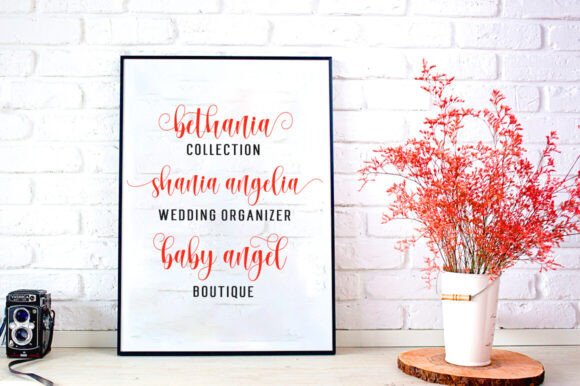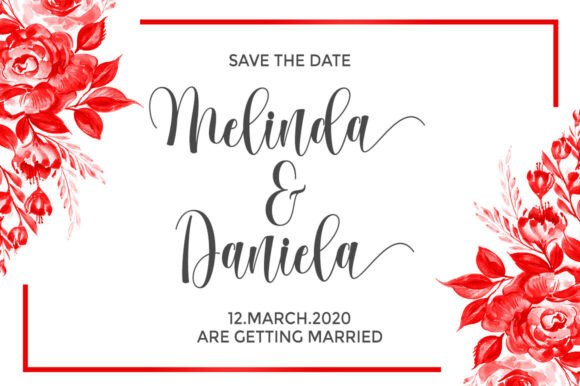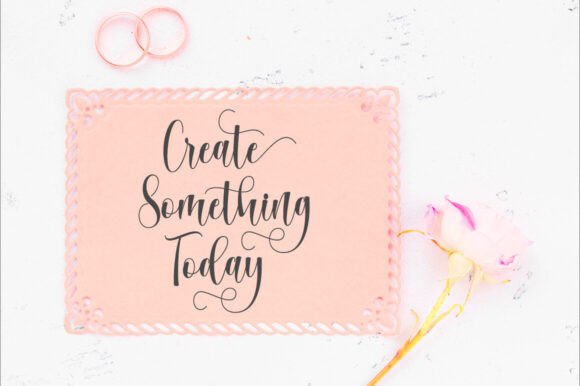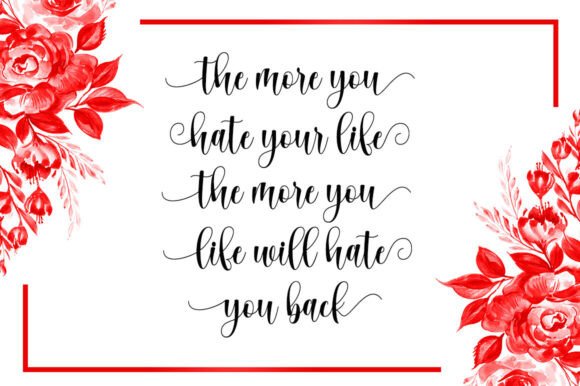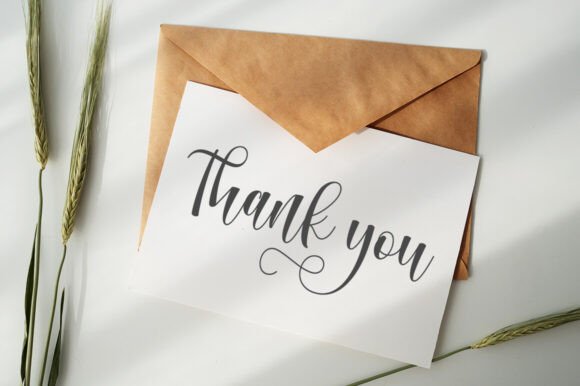
The Magical World of Disney Font: A Designer’s Delight
I’ll never forget the time I was working on a wedding invitation project, and my client asked for a font that was “magical” and “whimsical.” I scoured the internet, trying out font after font, but nothing seemed quite right. That was until I stumbled upon the Disney font. With its sweet, cursive handwritten style, it was love at first sight! ✨ In this article, I’ll share my experience with this gorgeous font, its features, and how to make the most of it in your designs.
An Honest Review of Disney Font
- ✨ The Disney font is a beautiful, elegant script that adds a touch of sophistication to any design.
- ✅ Its cursive style is perfect for creating romantic and whimsical designs, such as wedding invitations, greeting cards, and branding materials.
- 💫 The font is incredibly versatile and can be used for a wide range of projects, from fashion lookbooks to marketing promotions.
While the Disney font is a stunning addition to any design, there are a few things to keep in mind: 🤔
- ⚠️ The font can be a bit tricky to read at smaller sizes, so it’s best to use it for headlines or titles rather than body text.
- ⚠️ Some of the characters, such as the lowercase “q” and “x,” can be a bit quirky and may not fit perfectly with every design.
- Experiment with the font’s OpenType features, such as glyphs and stylistic alternates, to add some extra flair to your design.
The Story Behind Disney Font
The Disney font was inspired by the magical world of Disney, where fantasy and romance come alive. Its creator, a talented type designer, wanted to capture the essence of Disney’s whimsical style and bring it to the world of typography. The result is a font that’s both elegant and playful, perfect for designers who want to add a touch of magic to their work.
| Font Name | Disney Font |
| Author | Saint Creative |
Q: What type of projects is the Disney font best suited for?
A: The Disney font is perfect for a wide range of projects, including branding, logos, wedding invitations, greeting cards, fashion lookbooks, and marketing promotions.
Q: Is the Disney font available in different weights or styles?
A: The Disney font is available in a range of weights and styles, including regular, bold, and italic. You can experiment with different weights and styles to find the one that works best for your project.